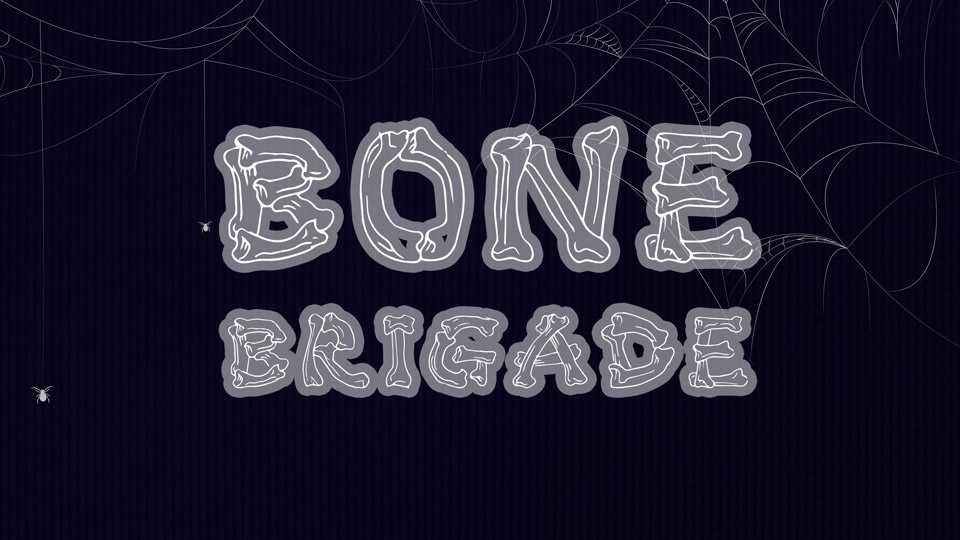
Download Bone Brigade foont, a playful typeface that would be good for Halloween season. Bone Brigade font is great for flyers, posters, bahhers and other holiday graphics.